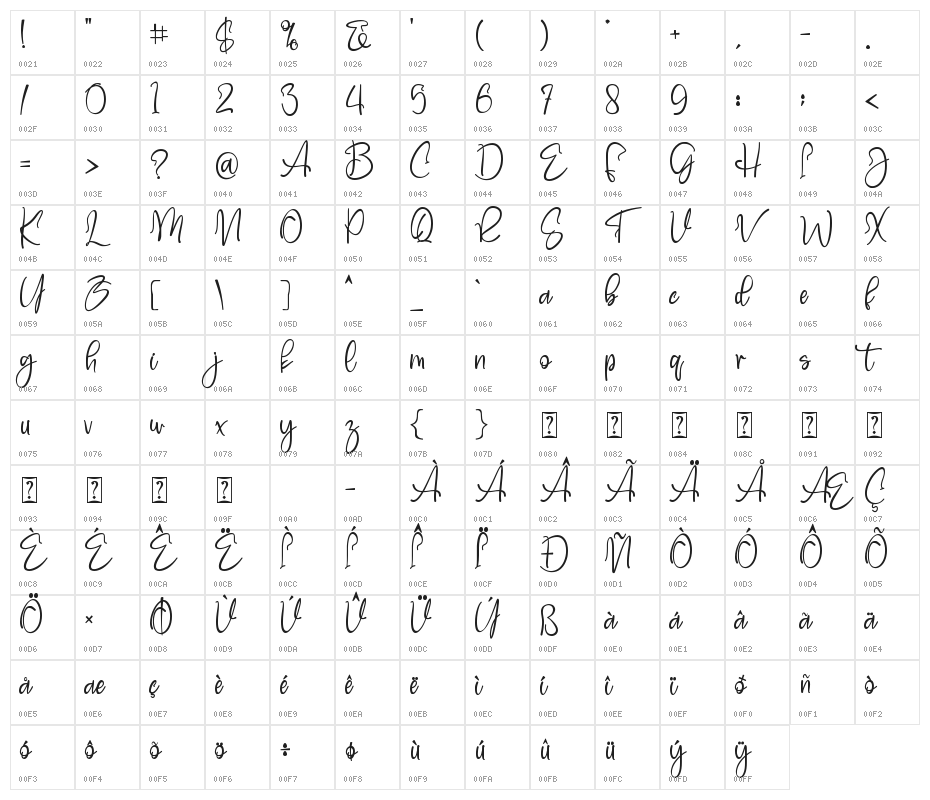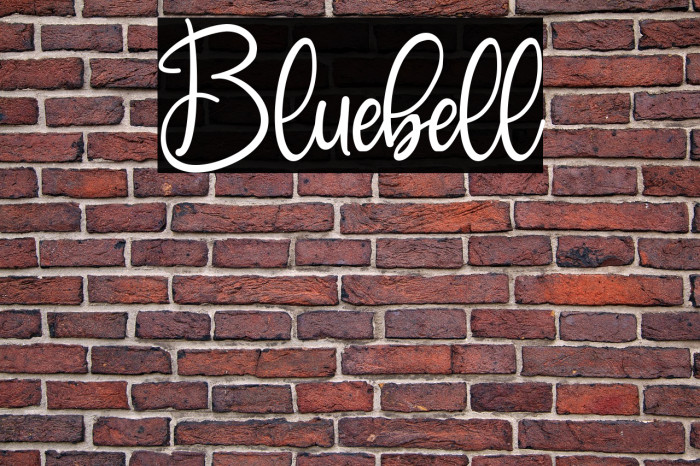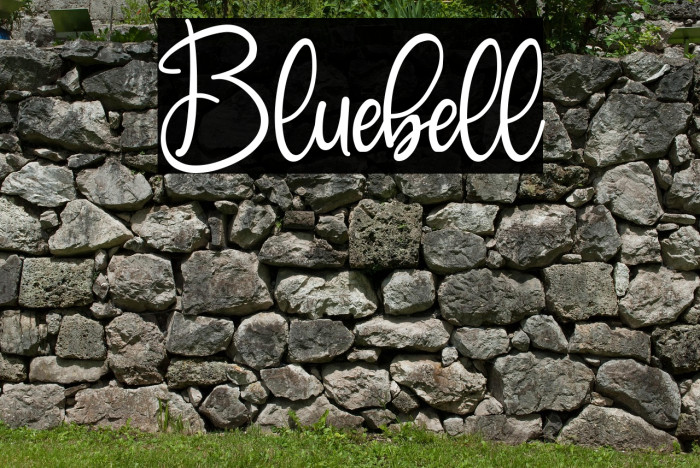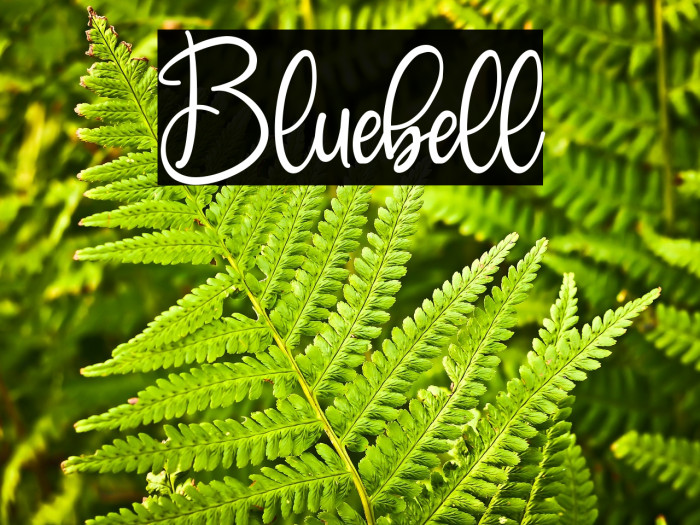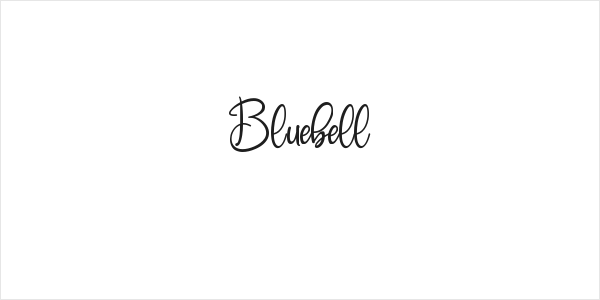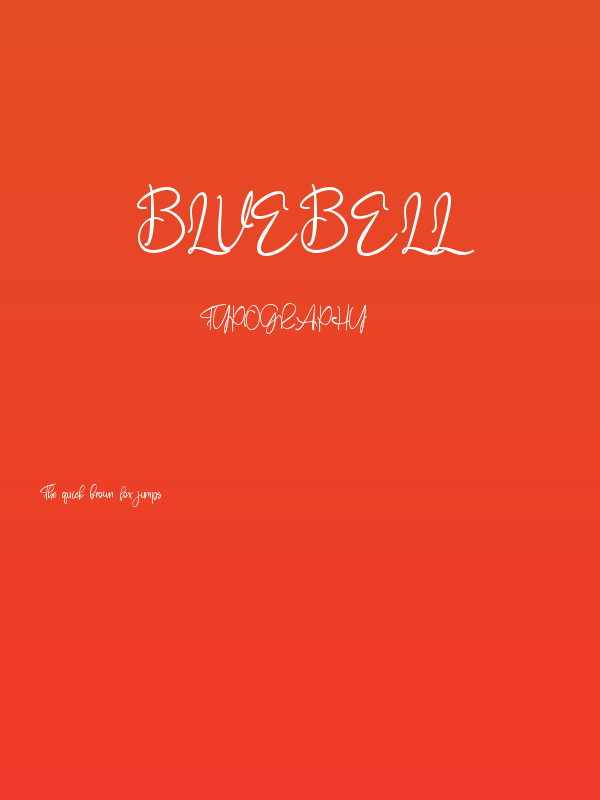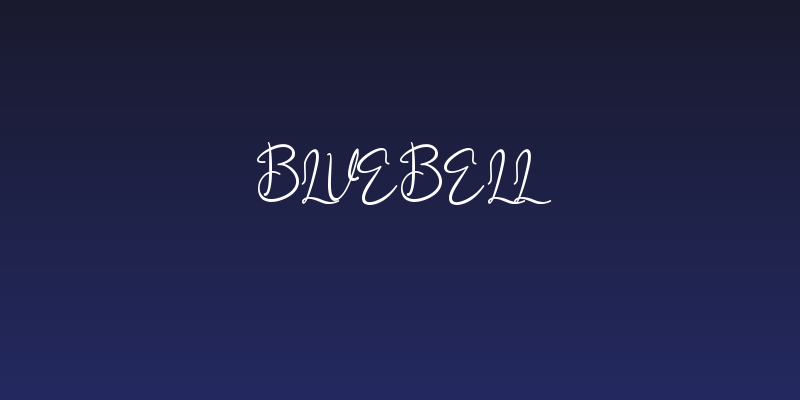
Bluebell Font
Bluebell Description
This font features a lively and dynamic script style, characterized by its fluid and interconnected letterforms. The uppercase letters exhibit a playful yet elegant flair, with loops and curves that add a sense of movement. The lowercase letters maintain a consistent flow, enhancing readability while preserving the font's artistic nature. Numbers and special characters are designed with the same attention to detail, ensuring a cohesive look across all elements. The overall appearance is both modern and whimsical, making it suitable for creative projects that require a personal touch.
| Use Case | Logos, Invitations, Decorative text |
| Proposed Projects | Ideal for wedding invitations, greeting cards, branding, and social media graphics. |